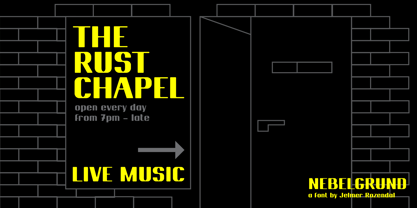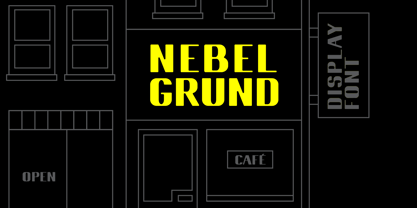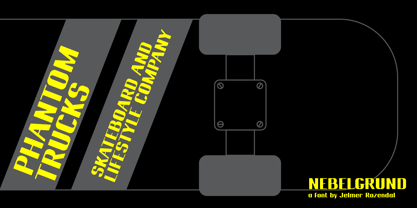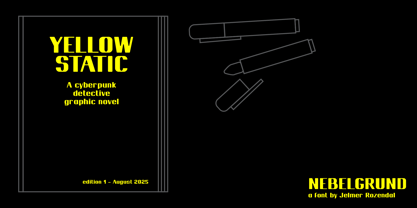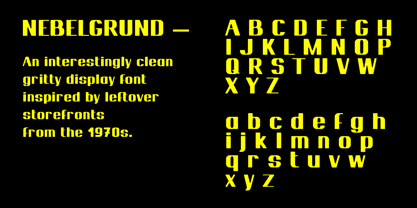
Nebelgrund
by Jelmer Rozendal
The Nebelgrund Font Family was designed by Jelmer Rozendal and published by Jelmer Rozendal. Nebelgrund contains 1 styles. More about this family
Inspired by the (formerly) smokey old cafes outside of the main streets of Vienna that somehow stood the test of time - this display font is designed to last. Nebelgrund feels familiar yet new, and opens a lot of possibilities for anything from street-level signage to logo design.
Jelmer Rozendal is a Dutch type designer and graphic designer with over a decade of experience shaping visual language through both letterforms and layout. Based in the Austria, their work bridges the clarity of modernist design with the nuance of expressive typography. With roots in graphic design, their approach to type is deeply informed by context, rhythm, and visual storytelling - resulting in typefaces that are as functional as they are distinctive.